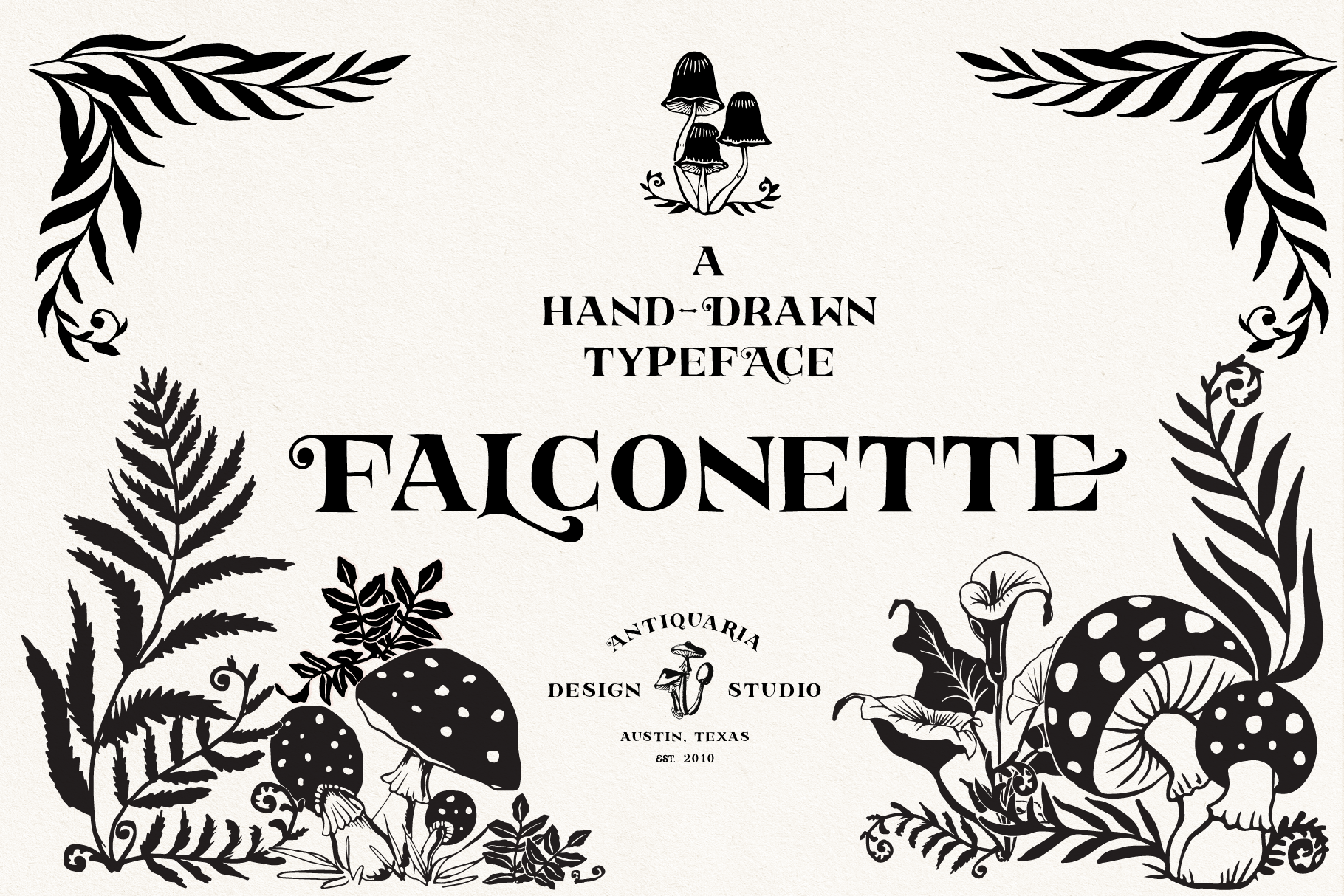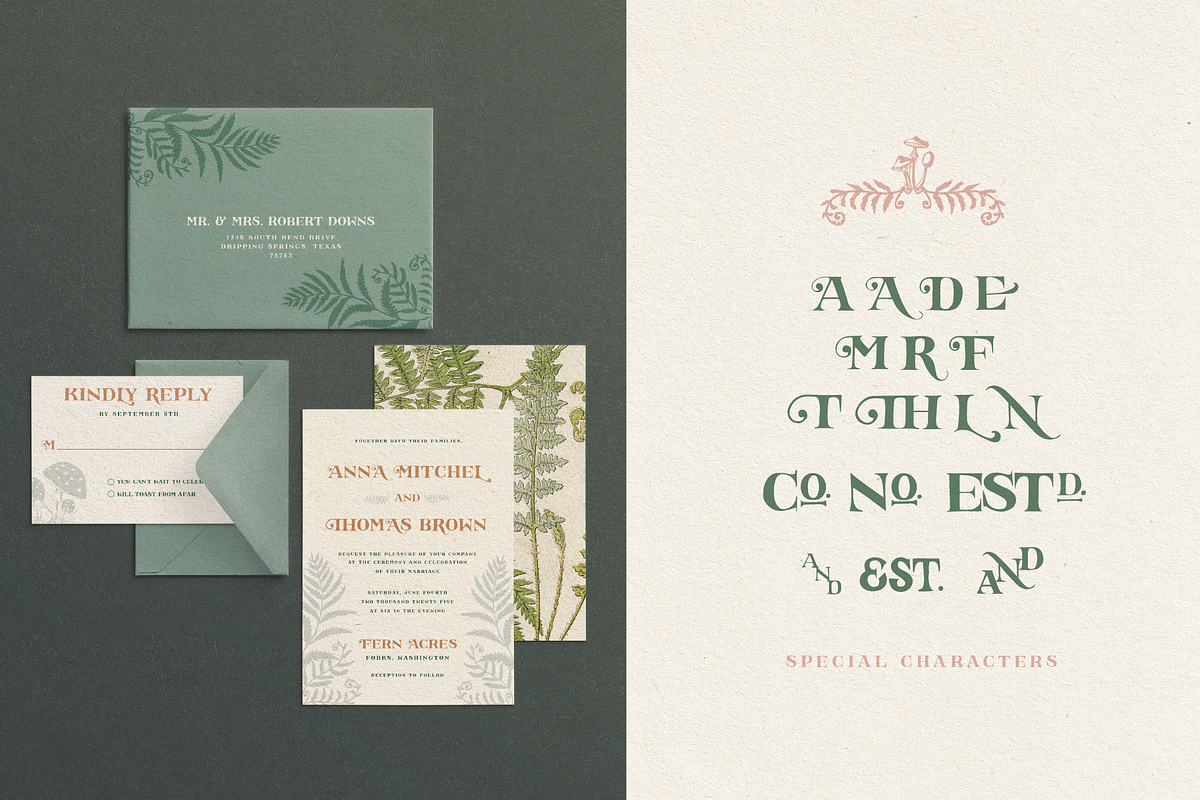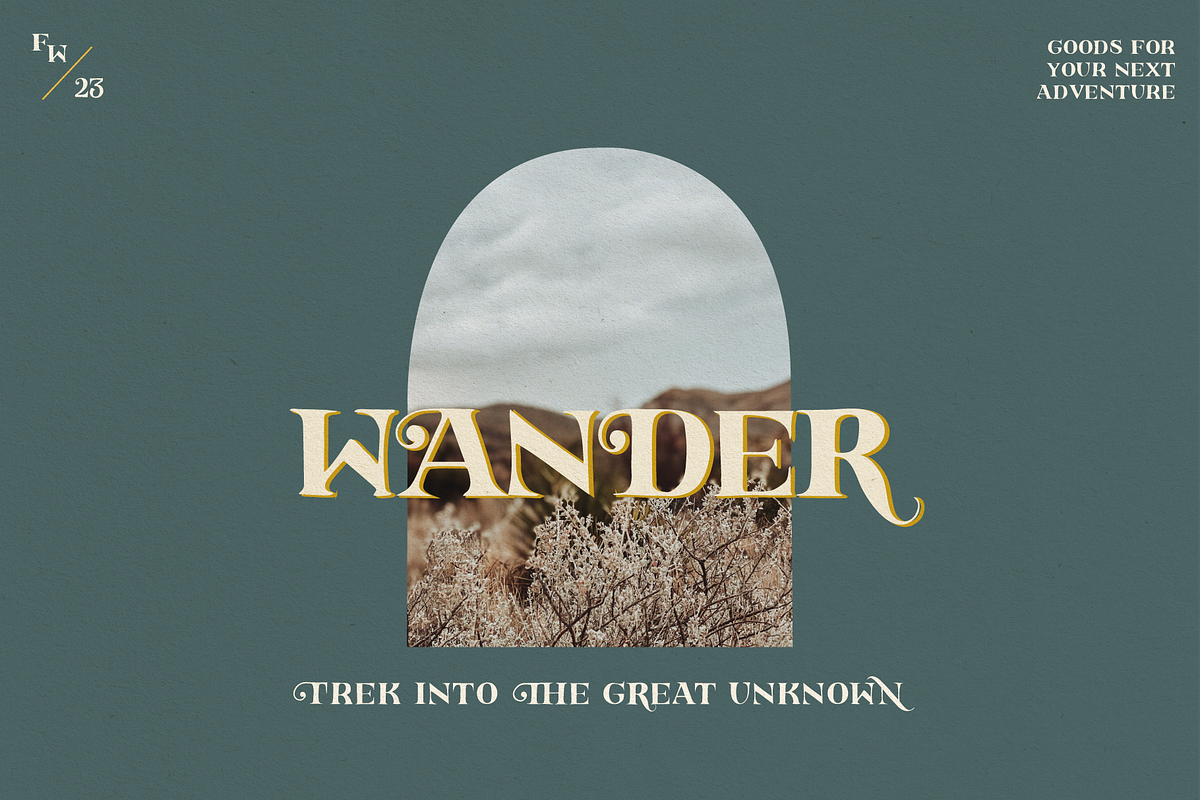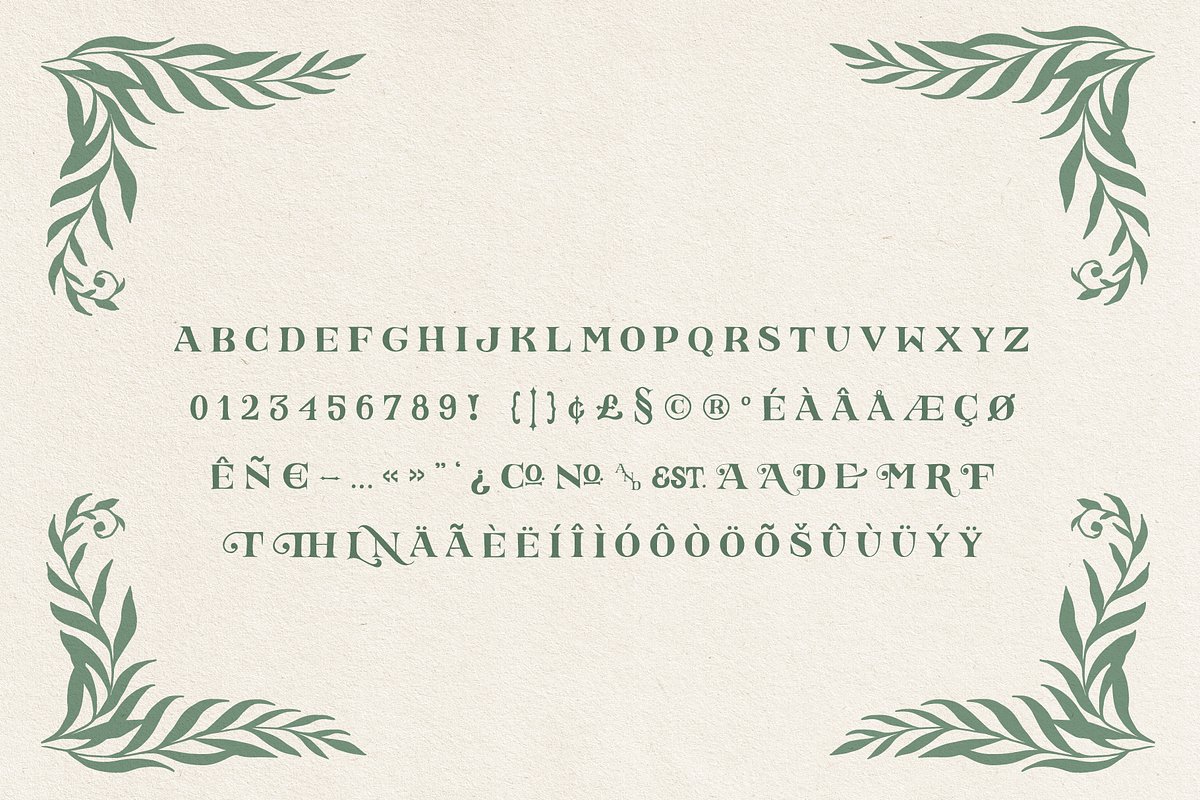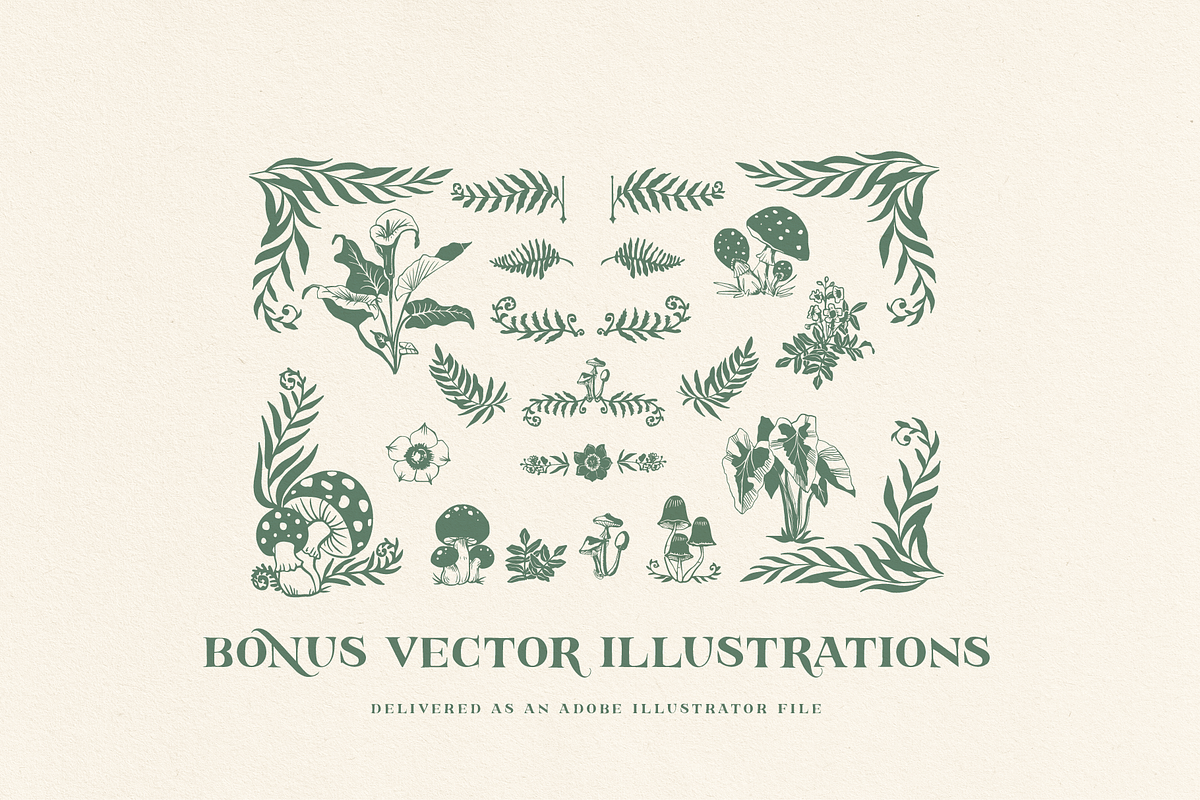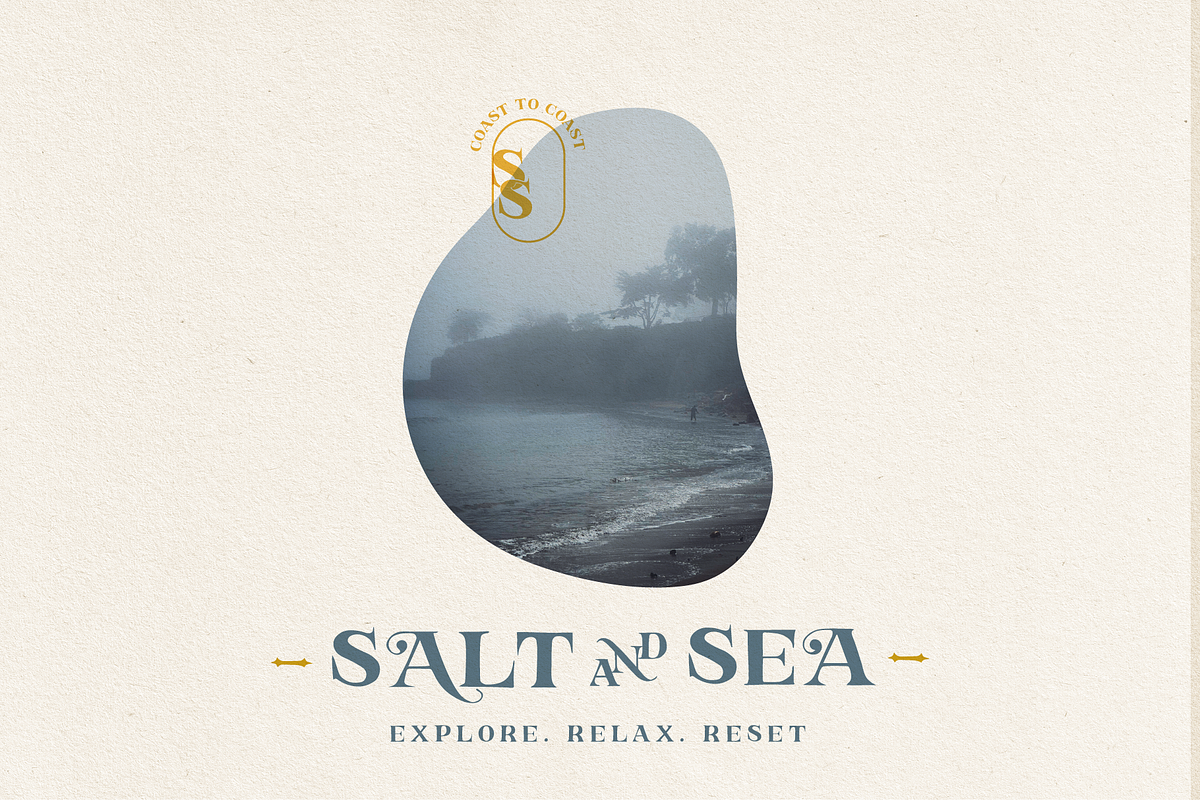
Falconette Font
Falconette is a hand-drawn typeface that evokes a fairytale-esque aesthetic reminding us of moss covered forest floors, pages of old books, and magical adventures. It's vintage, romantic, and elegant all in one. Perfect for branding, marketing, invitations, or wherever your inspiration leads you. This typeface is fully functional with numbers and punctuation.